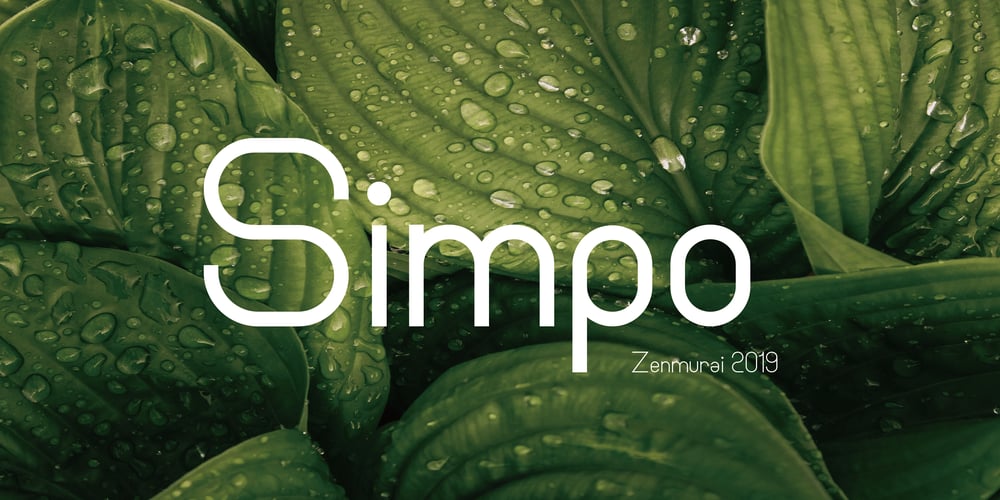
Simpo Sans Font Family was designed by HTL Ryan and published by Zenmurai. Simpo Sans contains 2 styles and family package options. Simpo Sans is a family of ten sans serif fonts. It’s my second font design project. It’s safe to say Simpo Sans has quite different features compare to my last work CHAOS. Right from the start, my ambition was to take the rounded corner elements into characters & glyph and use them to make something smooth.